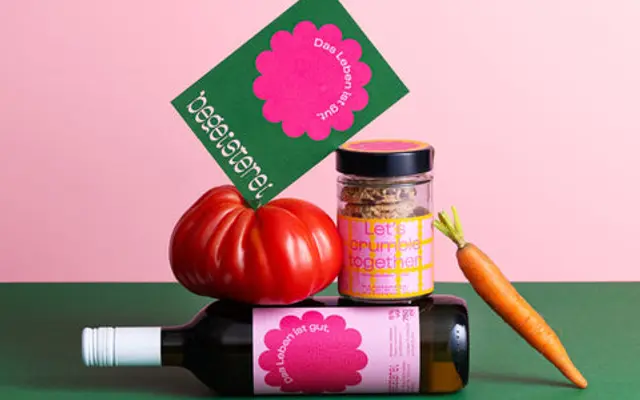
Plage
Lift Type · Bouk Ra · 2021
A geometric sans with exaggerated wave-inspired letterforms split across Text and Display optical sizes, designed by Bouk Ra for expressive, summer-inflected typesetting.
Designed by Bouk Ra and released in 2021, Plage pairs wide uppercase letters with slim, tall-x-height lowercase characters to create a lively rhythm across six styles. Three weights run across both Text and Display subfamilies, and the 794-glyph set includes multiple stylistic sets, alternates and ligatures that let users vary the pace and texture of a setting. The beach and surf references in its specimen are deliberate, making it well suited to seasonal campaigns, editorial titles and brand identities with a loose, warm character.
Plage is a geometric sans-serif with exaggerated wave-like curves and alternating wide uppercase and slim lowercase letters, positioning it firmly as a display typeface with an expressive, decorative character.